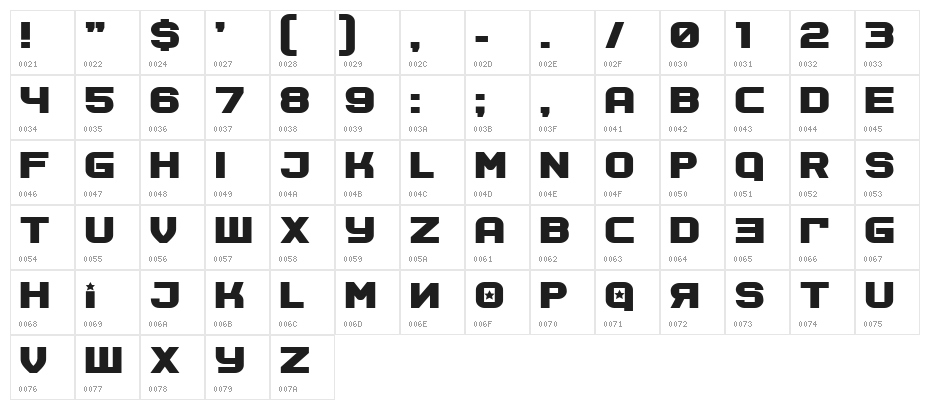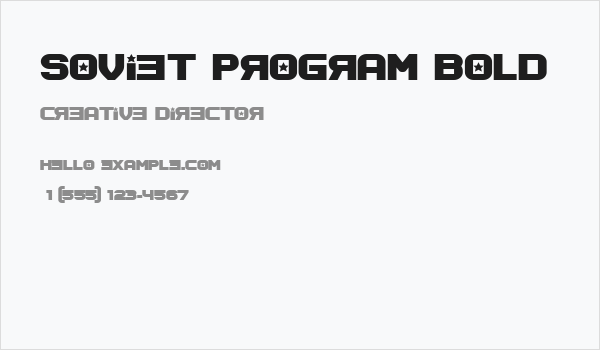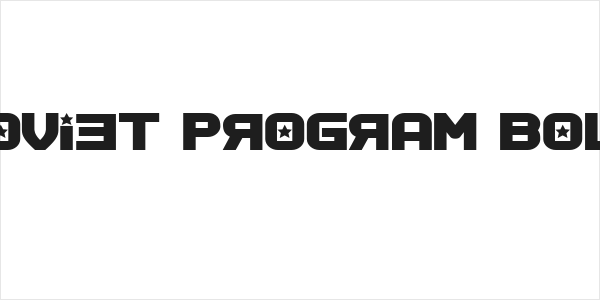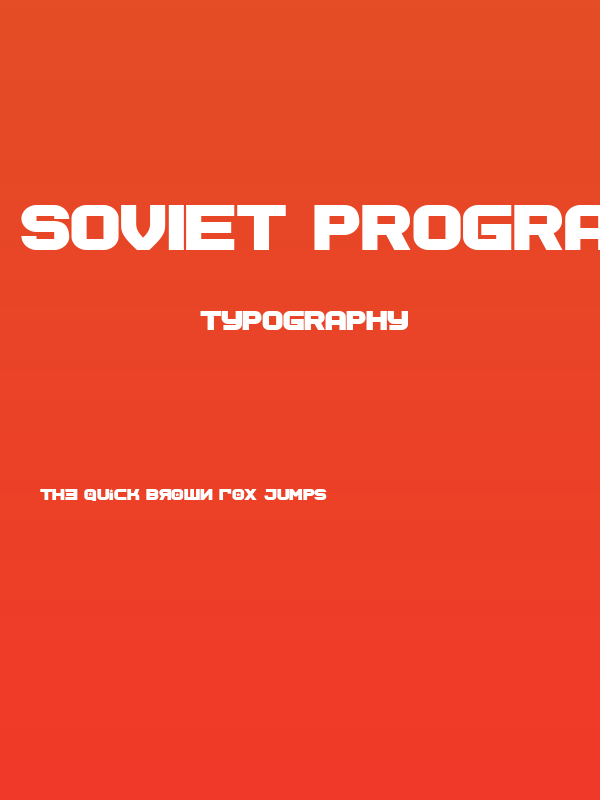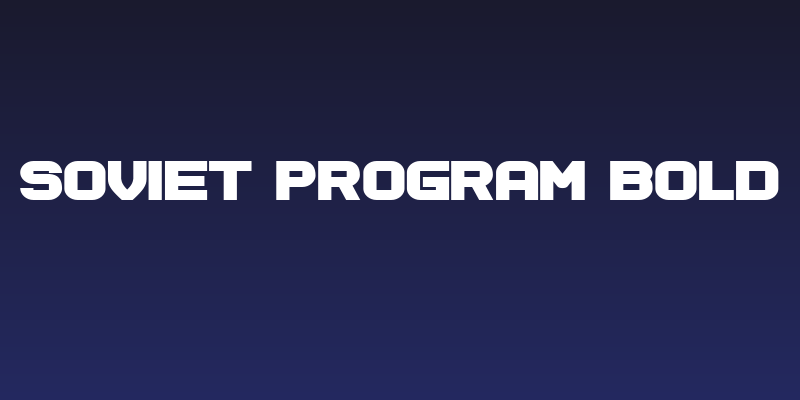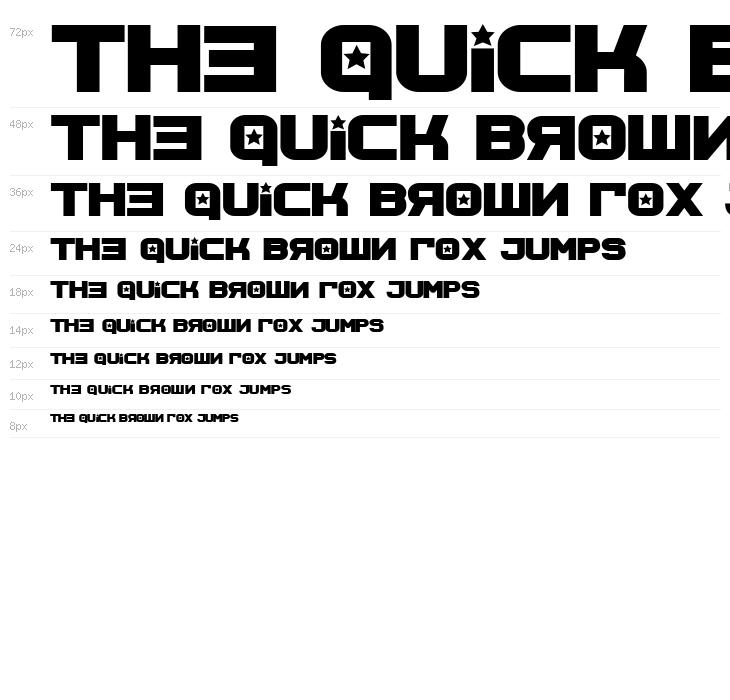
Soviet Program Bold Font
Soviet Program Bold Description
This font features a bold, geometric design with a distinctly industrial and futuristic aesthetic. The characters are constructed with thick, block-like forms, giving them a strong and commanding presence. The angular shapes and sharp edges contribute to a sense of precision and modernity. Some letters incorporate unique elements, such as stars, adding a decorative touch. The numerals and special characters maintain the same bold and structured style, ensuring consistency throughout. This font is ideal for projects that require a striking and impactful visual statement.
Proposed ProjectsIdeal for branding, posters, video game design, and any project needing a strong, modern aesthetic.